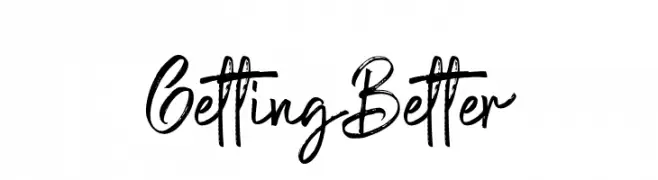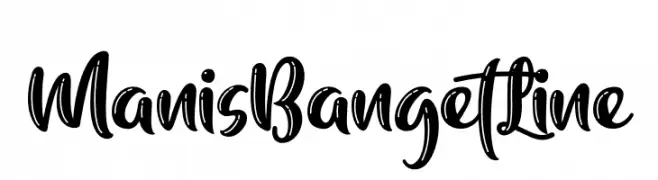
A bold, brush-style font with a playful and artistic appearance.
A bold, handwritten font with a playful and energetic style.
A dynamic, expressive handwritten font with brush-like strokes.
A playful, bold font with irregular strokes and a lively style.
A bold, rounded, and playful font with a friendly and energetic style.
A dynamic, brush-stroke font with an artistic and energetic style.
A playful, casual handwritten font with flowing, whimsical strokes.
A bold, jagged, and energetic font with a graffiti-like style.
A bold, handwritten script font with a dynamic and energetic style.
A bold, expressive script font with a playful, artistic flair.